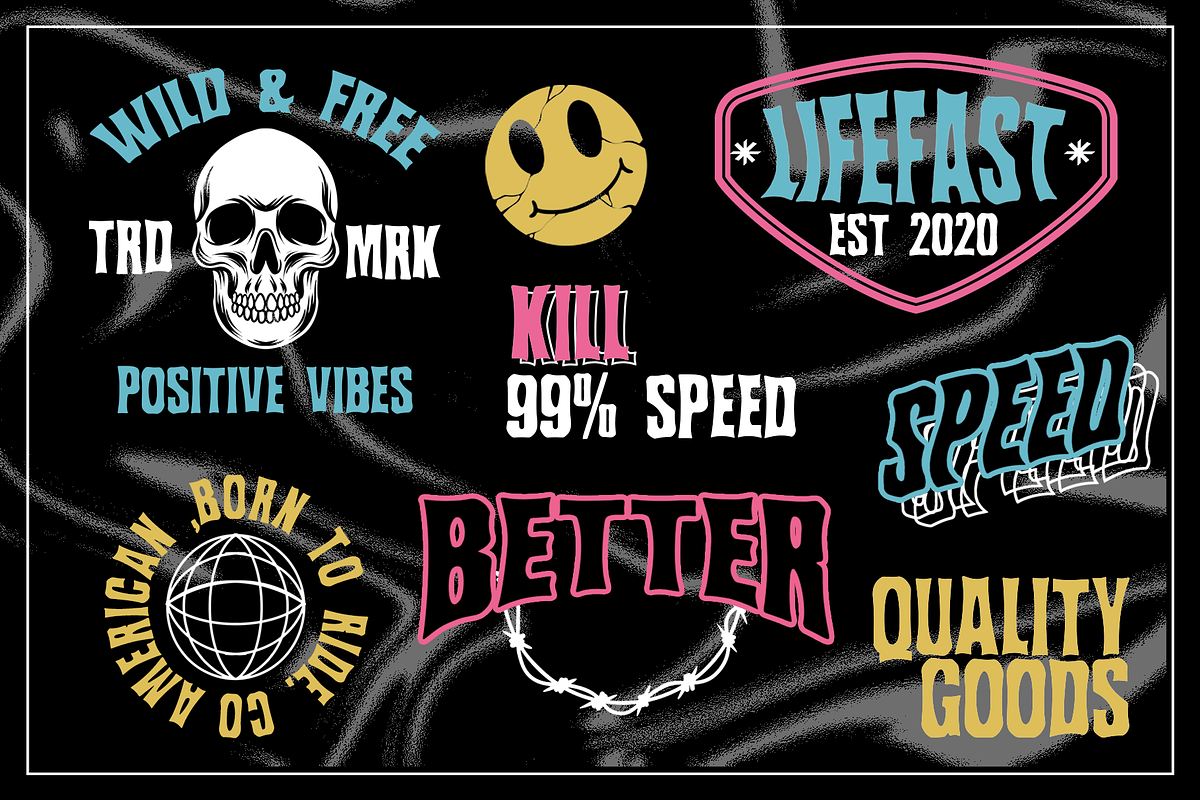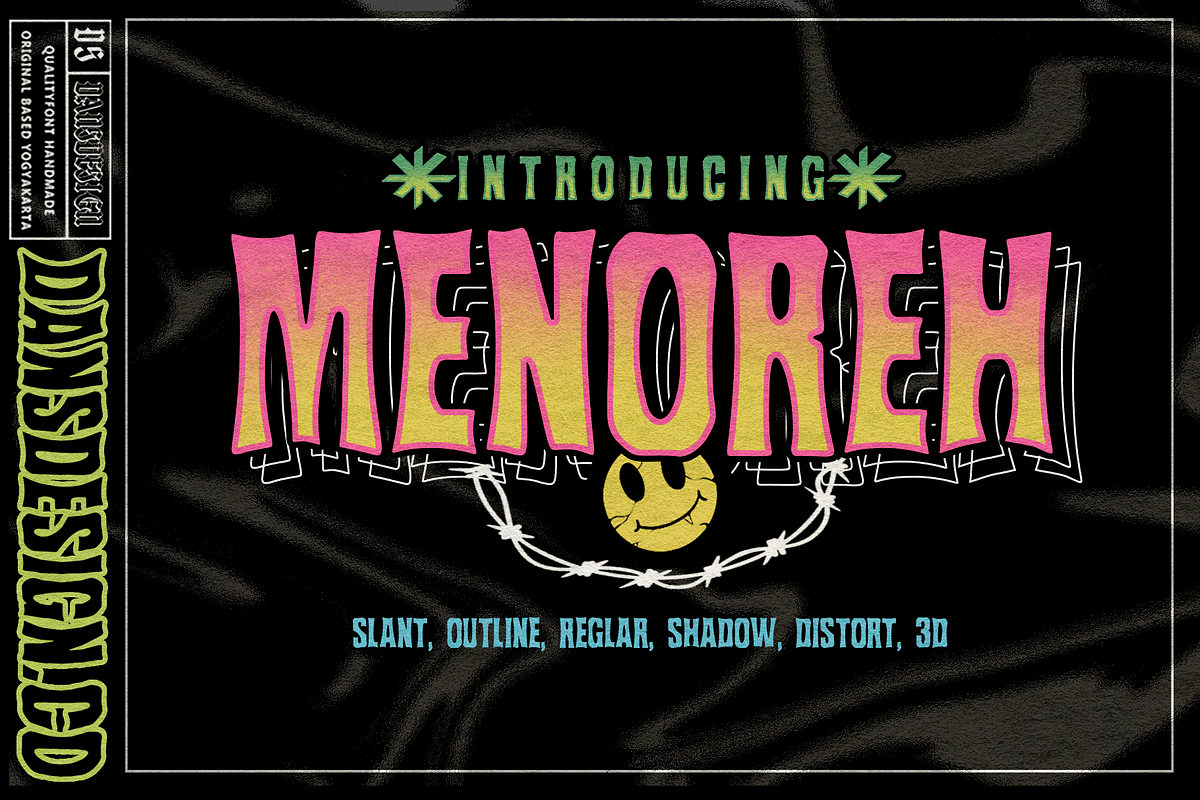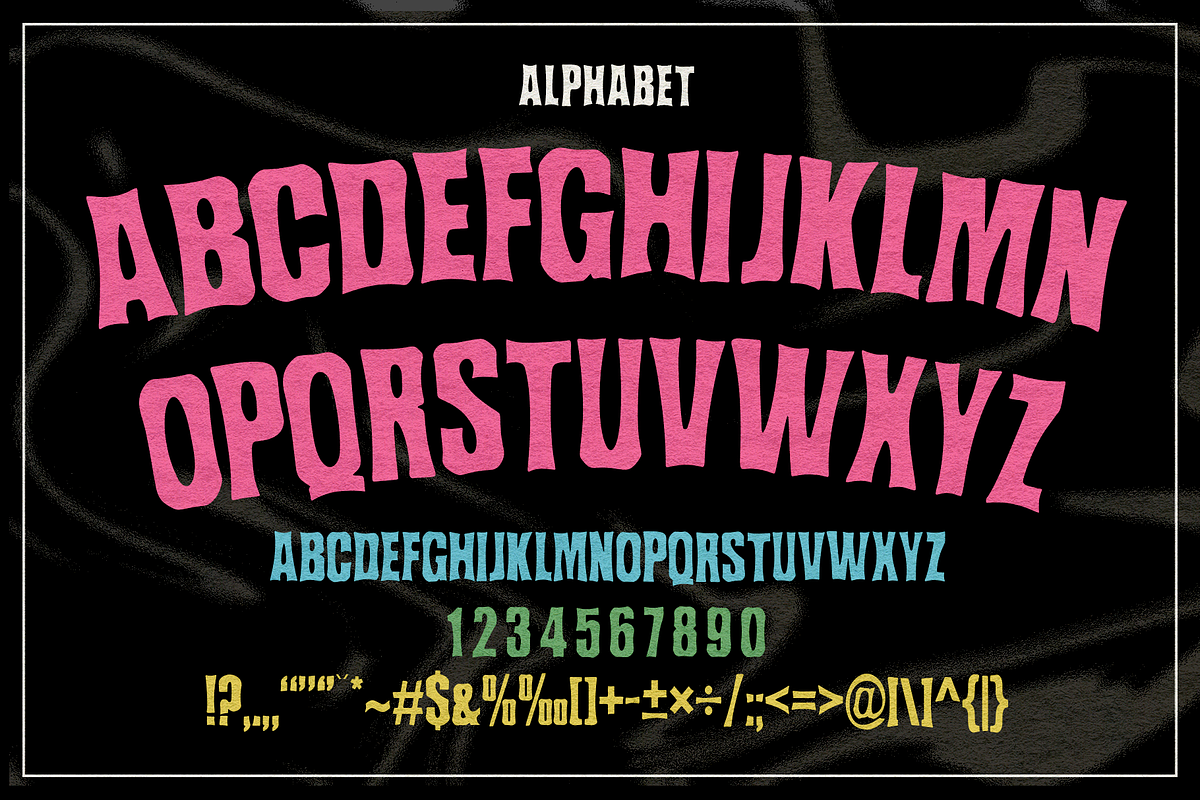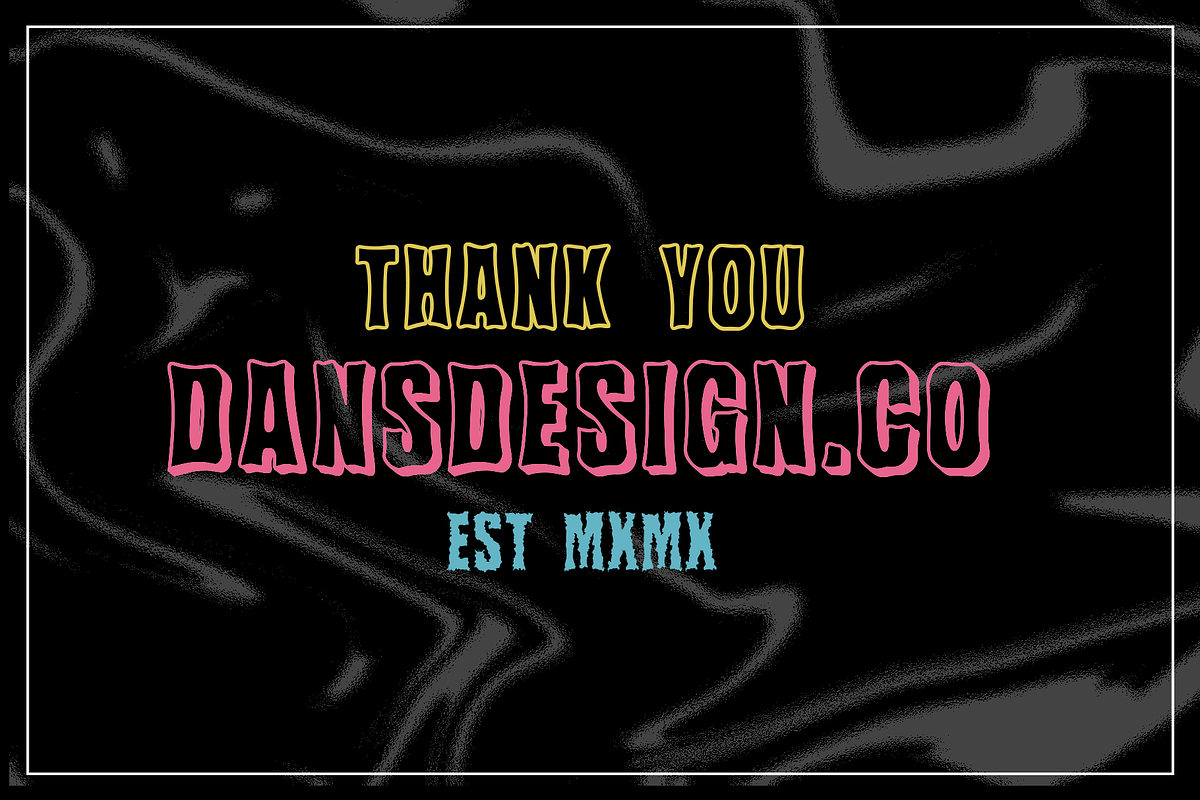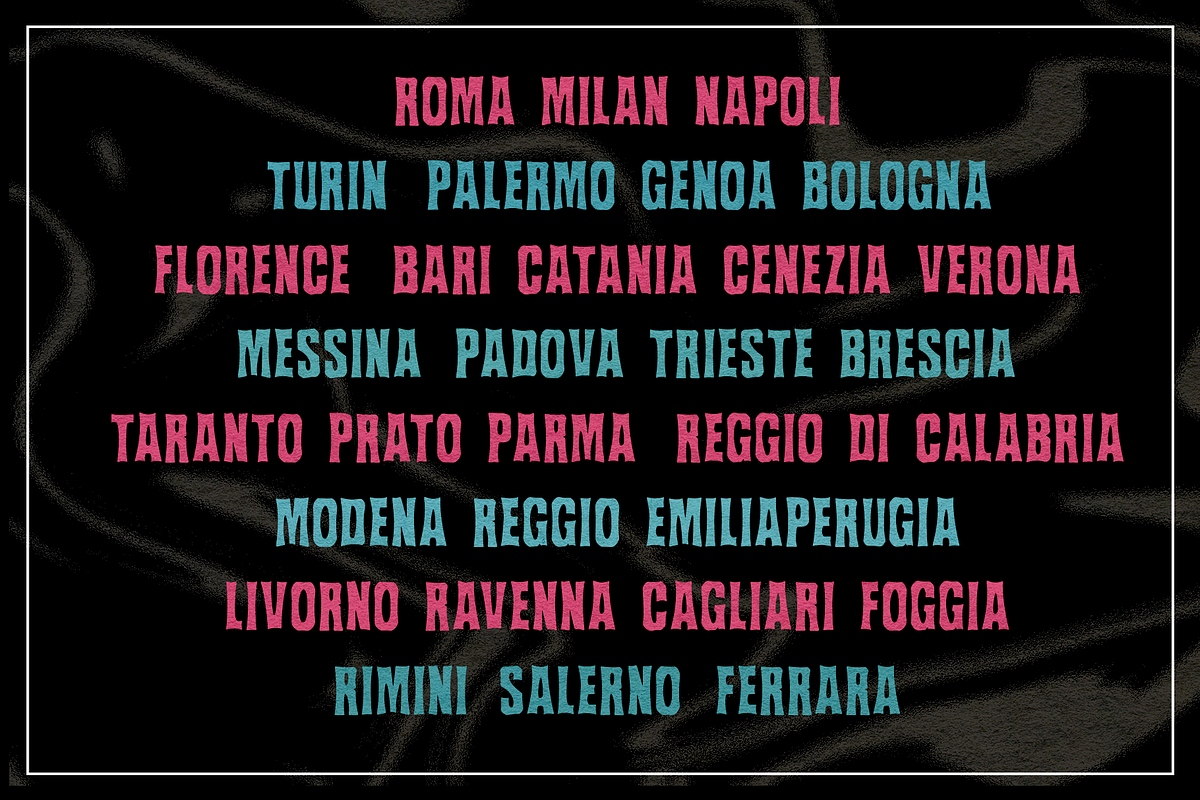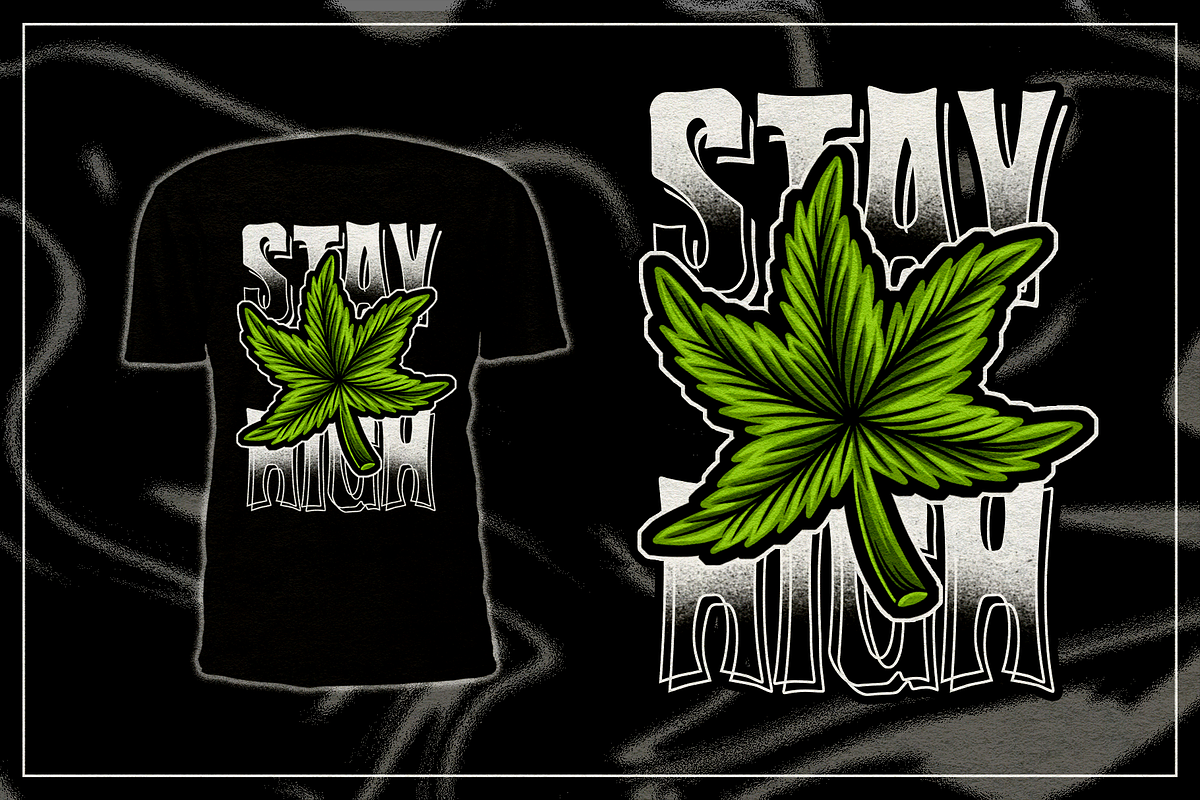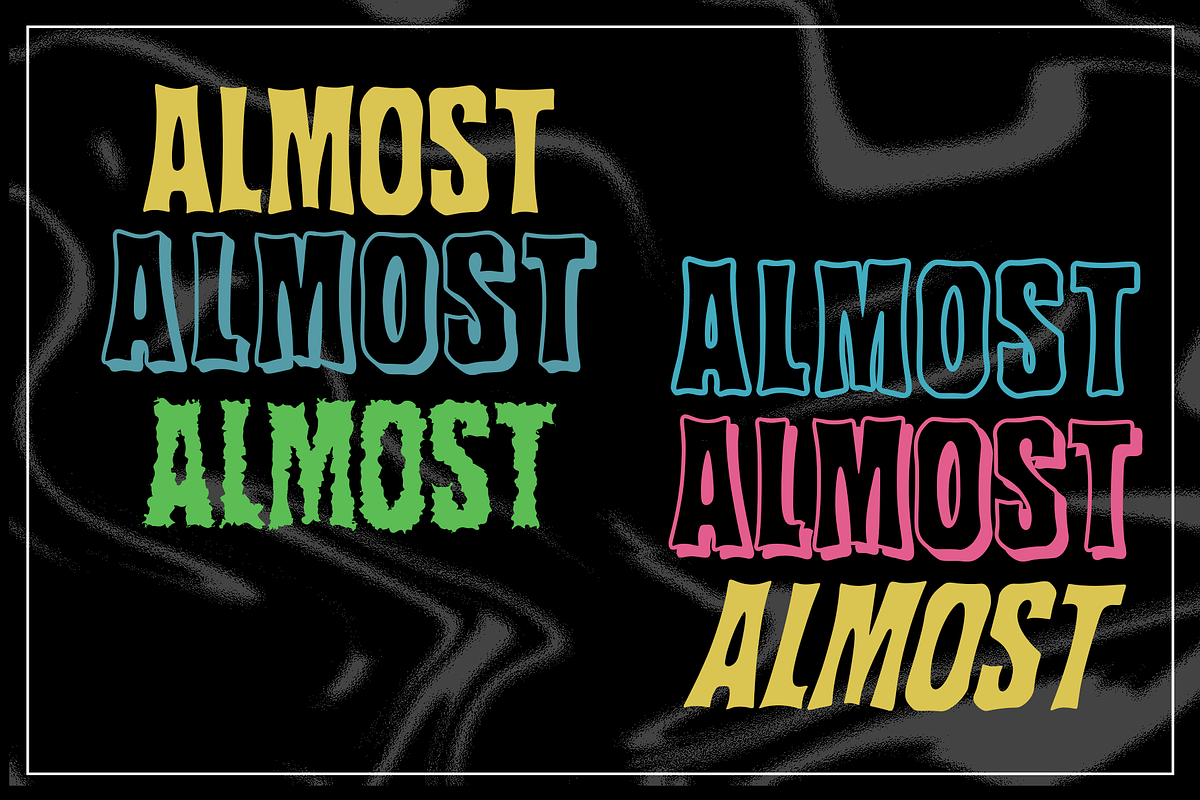
MENOREH
Introducing our new product called MENOREH VINTAGE BLACKLETTER DISPLAY font . I made this brush lettering reference. MENOREH brush font are great for logos, tshirt designs, badges, headlines, signatures, packaging, and more.